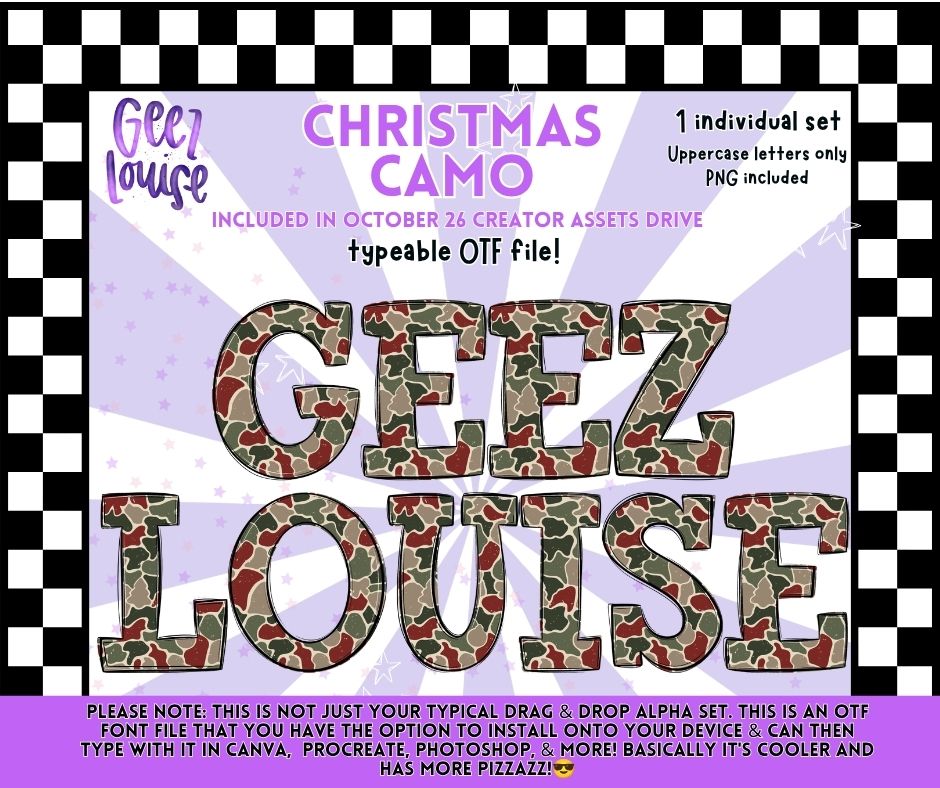
Christmas Camo Alpha OTF Font + PNG Alphabet
A bold Christmas camo alphabet featuring festive red, green, cream, and black camouflage. Includes a typeable OTF font plus uppercase PNG letters, giving you the option to type directly in compatible programs or use the individual PNGs. 🎄🦆